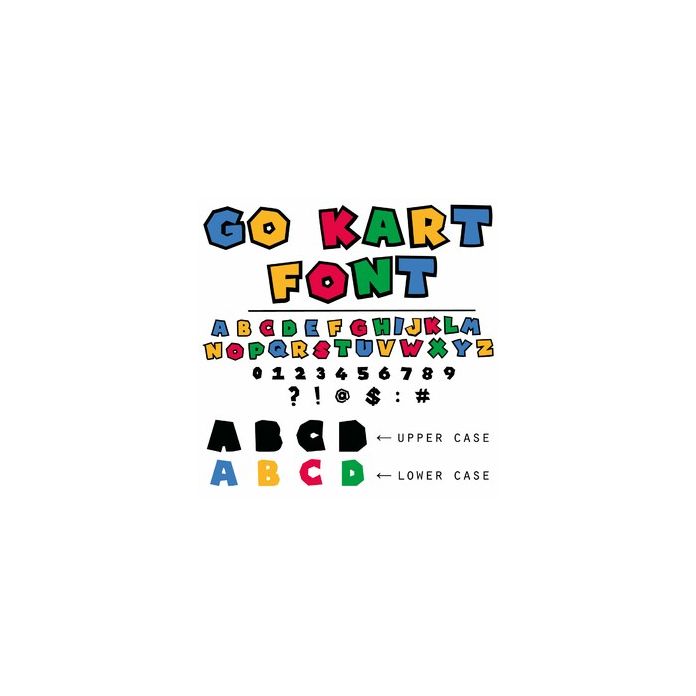
Go Kart Font
Go Kart Layered Font - Uppercase is the bottom mat layer and lowercase is the regular text for the top. Includes numbers and punctuation.